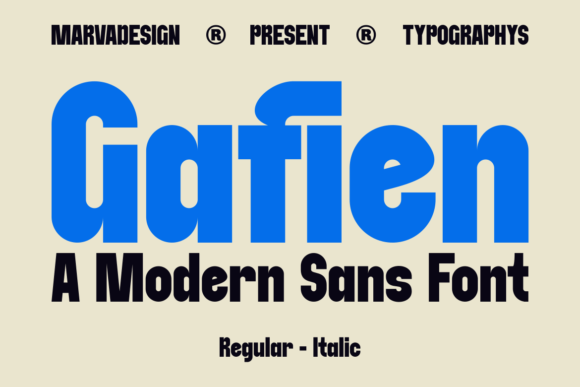
Gafien Font: The Modern Display Font for Your Branding Needs
In the world of typography, fonts play a crucial role in conveying the tone and personality of a brand. A well-designed font can elevate a brand’s visual identity and make it stand out from the competition. Introducing **Gafien Font**, a modern display font that is bold, authentic, and versatile. In this article, we’ll explore the features and benefits of Gafien Font and why it’s the perfect choice for your branding projects.
What is Gafien Font?
Gafien Font is a modern display font designed to make a statement. Its bold and authentic style makes it suitable for a wide range of contexts, from logos and branding to templates, packaging, and more. The font’s unique design ensures that it stands out in a crowded market, making it perfect for businesses looking to create a strong visual identity.
Key Features of Gafien Font
Bold and Authentic Design
Gafien Font boasts a bold and authentic design that is sure to grab attention. Its modern style ensures that your branding looks fresh and up-to-date, while its versatility makes it suitable for a wide range of applications.
High-Quality Typography
Gafien Font is designed with high-quality typography in mind. The font is clear, legible, and easy to read, making it perfect for use in a variety of contexts, from digital media to print materials.
Wide Range of Applications
Gafien Font is suitable for a wide range of branding projects, including:
- Logos and branding
- Templates and brochures
- Packaging and labeling
- Advertising and marketing materials
- Digital media, including social media and websites
Benefits of Using Gafien Font
Stand Out from the Competition
In a crowded market, it can be challenging to make your brand stand out. Gafien Font’s unique design ensures that your branding looks bold and authentic, setting you apart from the competition.
Enhance Your Brand’s Visual Identity
A well-designed font is essential for creating a strong visual identity. Gafien Font’s modern style and high-quality typography ensure that your branding looks professional and cohesive.
Versatility and Flexibility
Gafien Font is versatile and flexible, making it suitable for a wide range of applications. Whether you’re creating a logo, template, or packaging material, Gafien Font is the perfect choice.
Here are some tips for getting the most out of Gafien Font:
- Use Gafien Font as a headline font to grab attention
- Pair Gafien Font with a clean, sans-serif font for body text
- Experiment with different colors and textures to add depth and interest
In conclusion, Gafien Font is a modern display font that is perfect for businesses looking to create a strong visual identity. Its bold and authentic design, high-quality typography, and versatility make it suitable for a wide range of branding projects. Whether you’re creating a logo, template, or packaging material, Gafien Font is the perfect choice. Download Gafien Font today and take your branding to the next level!